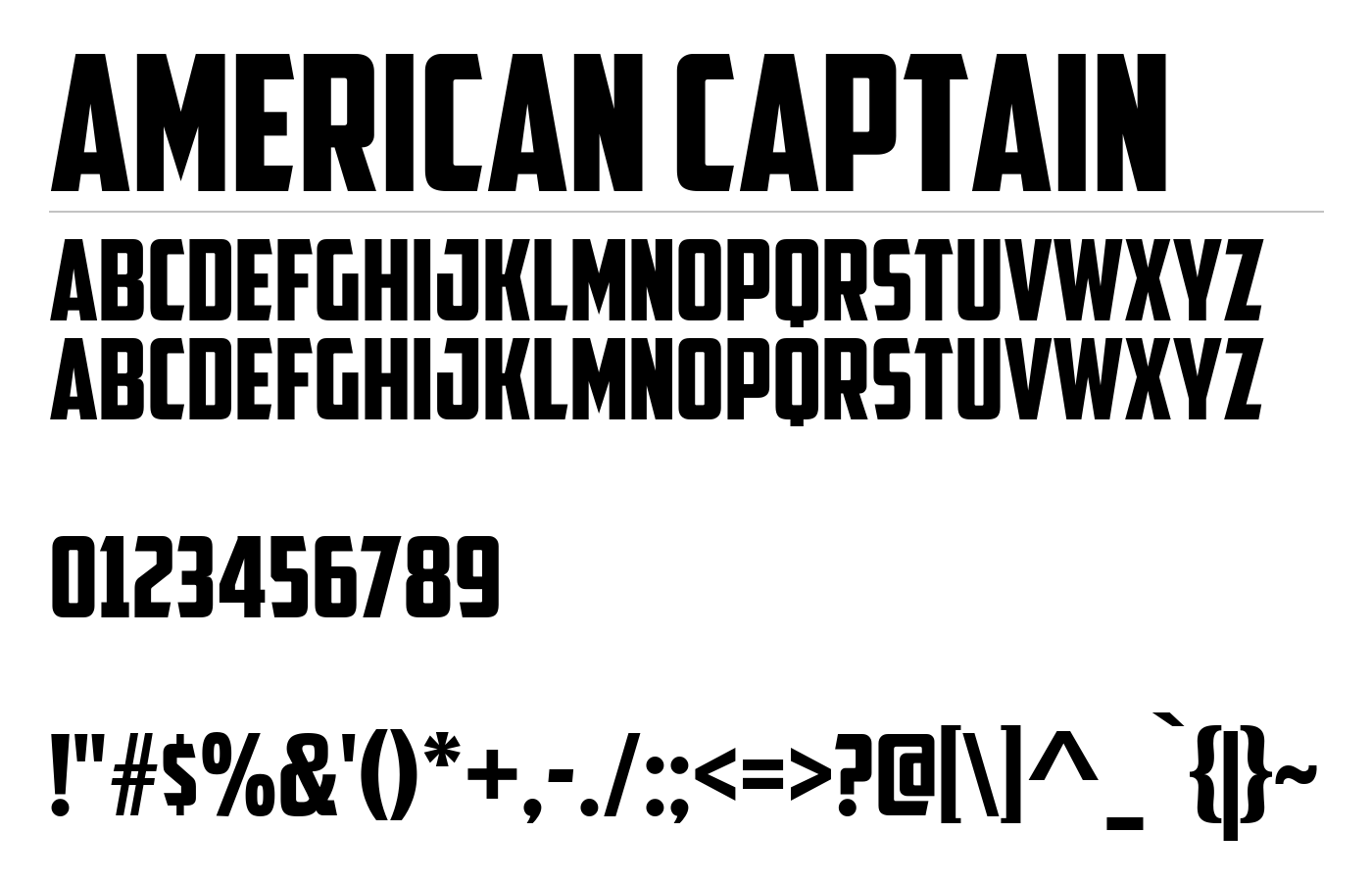
American Captain is a bold, condensed sans serif font with a strong, commanding presence. Its tall, narrow letterforms and consistent stroke weight give it a modern yet sturdy look, making it ideal for impactful headlines, logos, and branding that require a confident and authoritative style. This font works especially well in contexts where clarity and boldness need to be paired with a sleek, no-nonsense aesthetic.
American Captain Font
About American Captain Font
| Font family | American Captain Font |